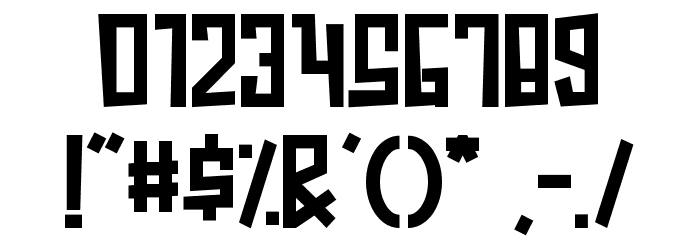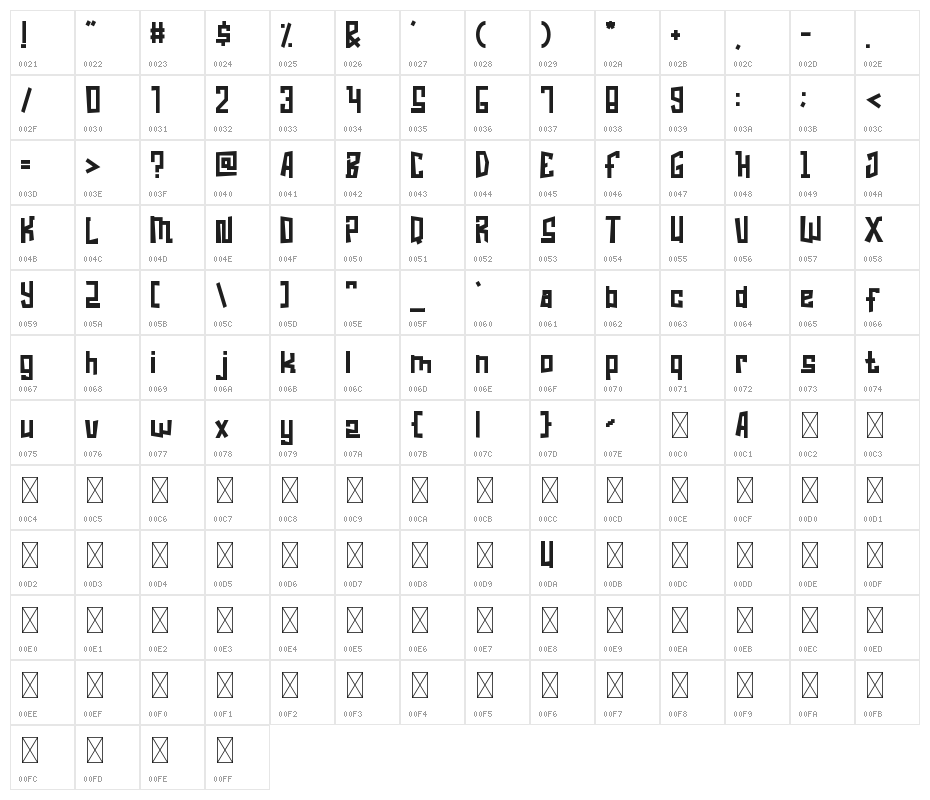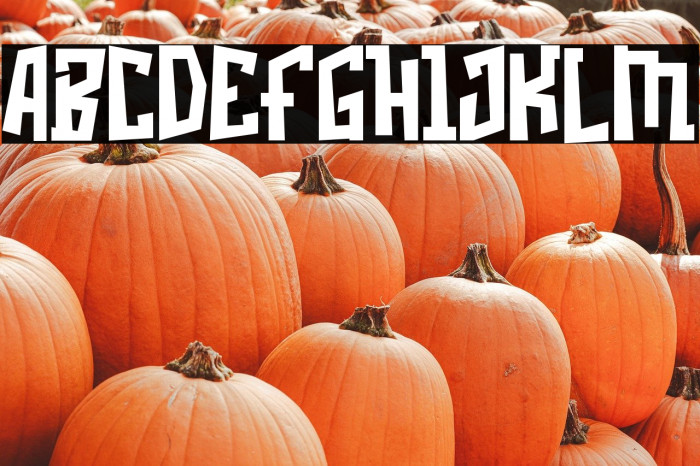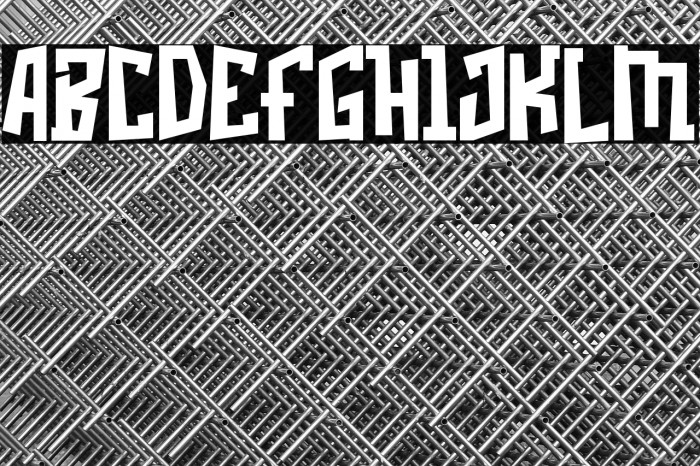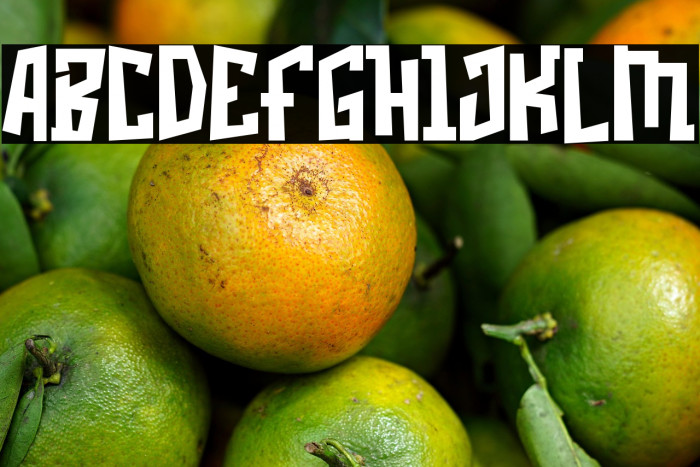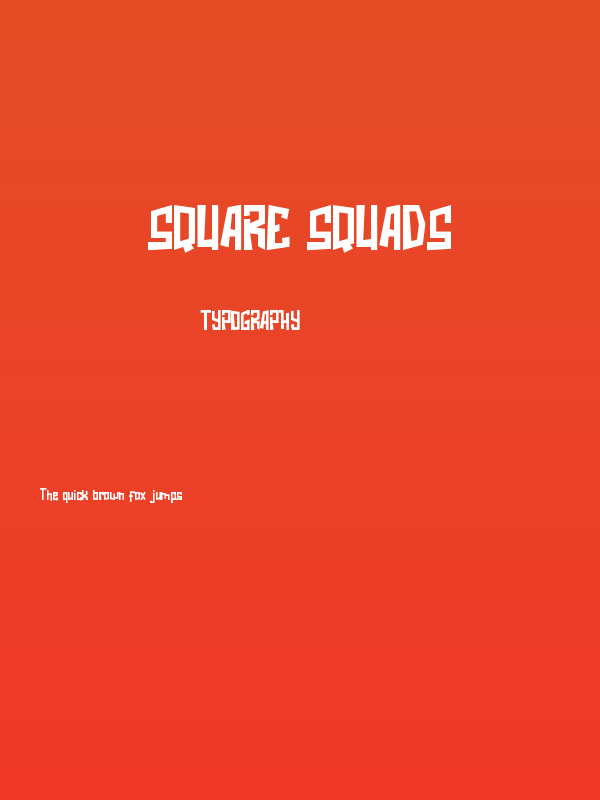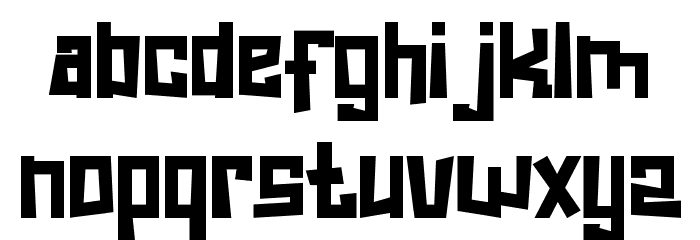
Square Squads Font
Square Squads Description
This font features a bold, geometric design with a playful and modern aesthetic. The characters are constructed with sharp angles and straight lines, giving them a blocky, almost digital appearance. Each letter and number is distinct, with exaggerated proportions that make them stand out. The uppercase and lowercase letters maintain a consistent style, while the numerals and special characters complement the overall look. This font is ideal for projects that require a strong visual impact and a contemporary feel.
| Proposed Projects | Ideal for branding, posters, video game graphics, and modern digital interfaces. |